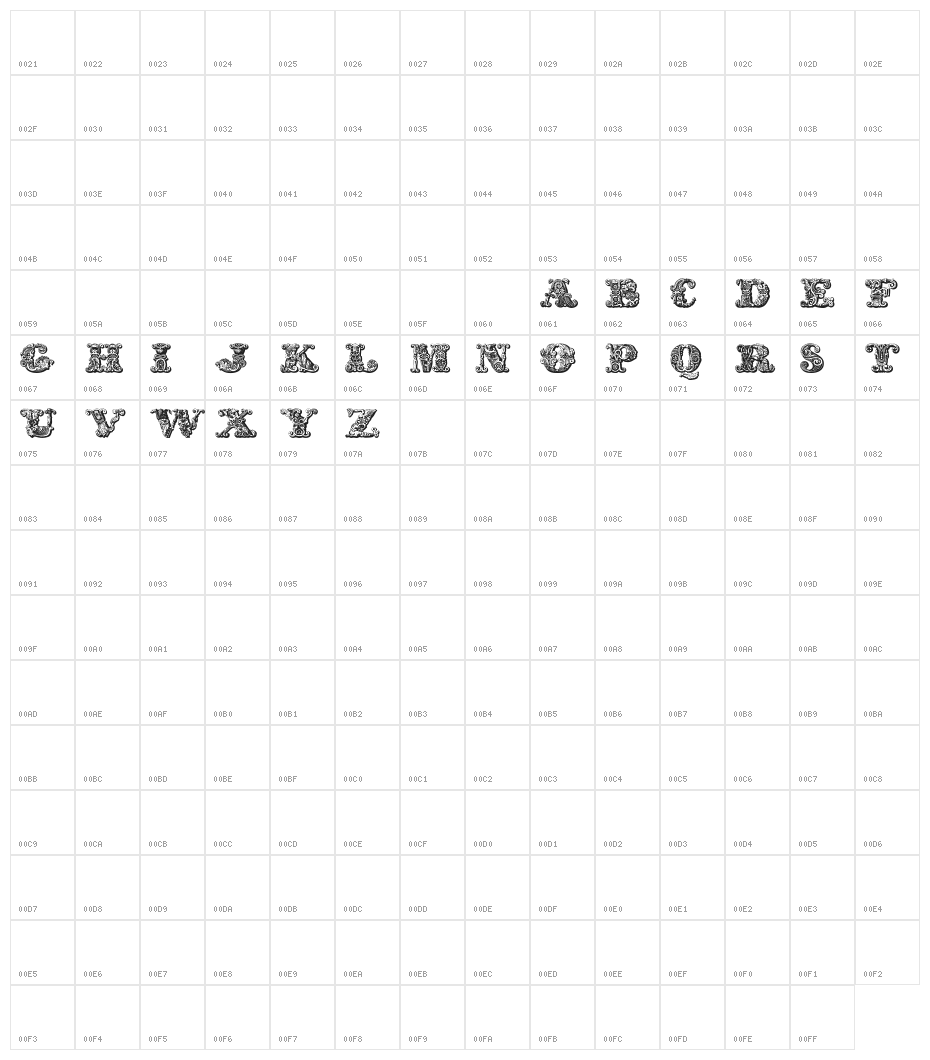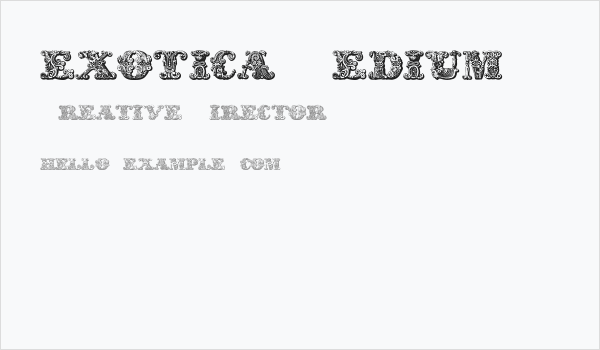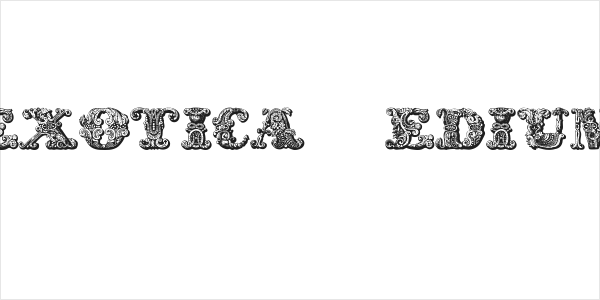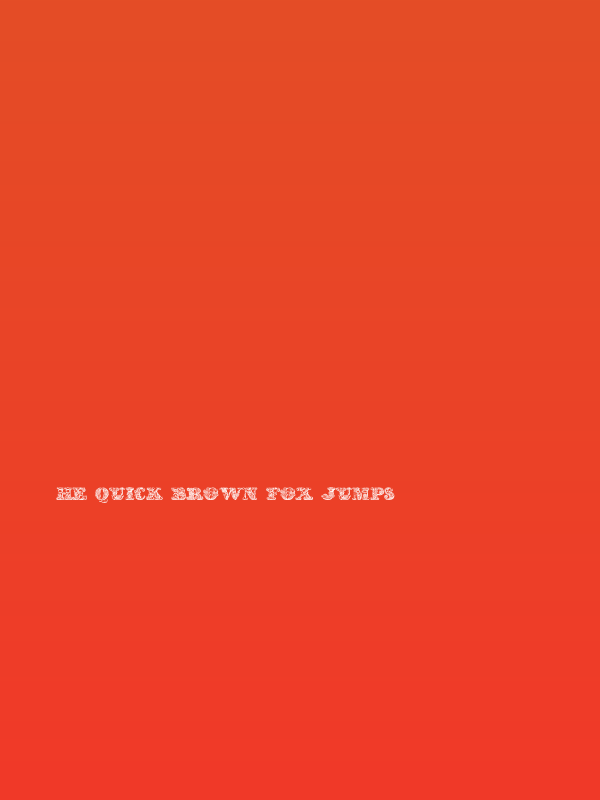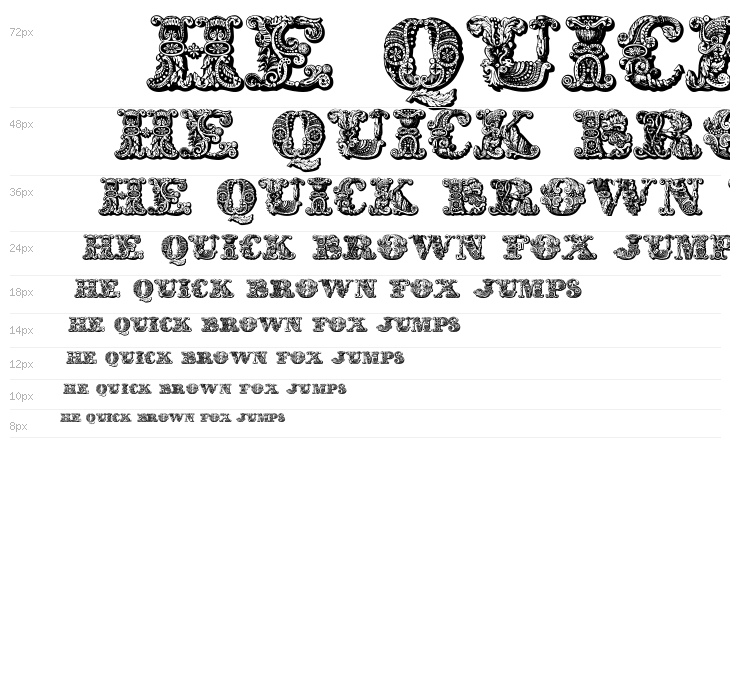
exotica Medium Font
exotica Medium Description
This ornate and decorative font features intricate floral and swirling patterns embedded within each character, creating a highly detailed and artistic appearance. The uppercase letters are bold and eye-catching, with each character showcasing unique embellishments that add to the font's overall elegance and sophistication. The intricate designs within the letters give it a vintage and classical feel, reminiscent of Victorian or Baroque styles. This font is ideal for projects that require a touch of luxury and opulence, making it perfect for invitations, branding, or any design that aims to capture attention with its elaborate and artistic flair.
| Proposed Projects | Perfect for wedding invitations, luxury branding, artistic posters, and decorative headlines. |